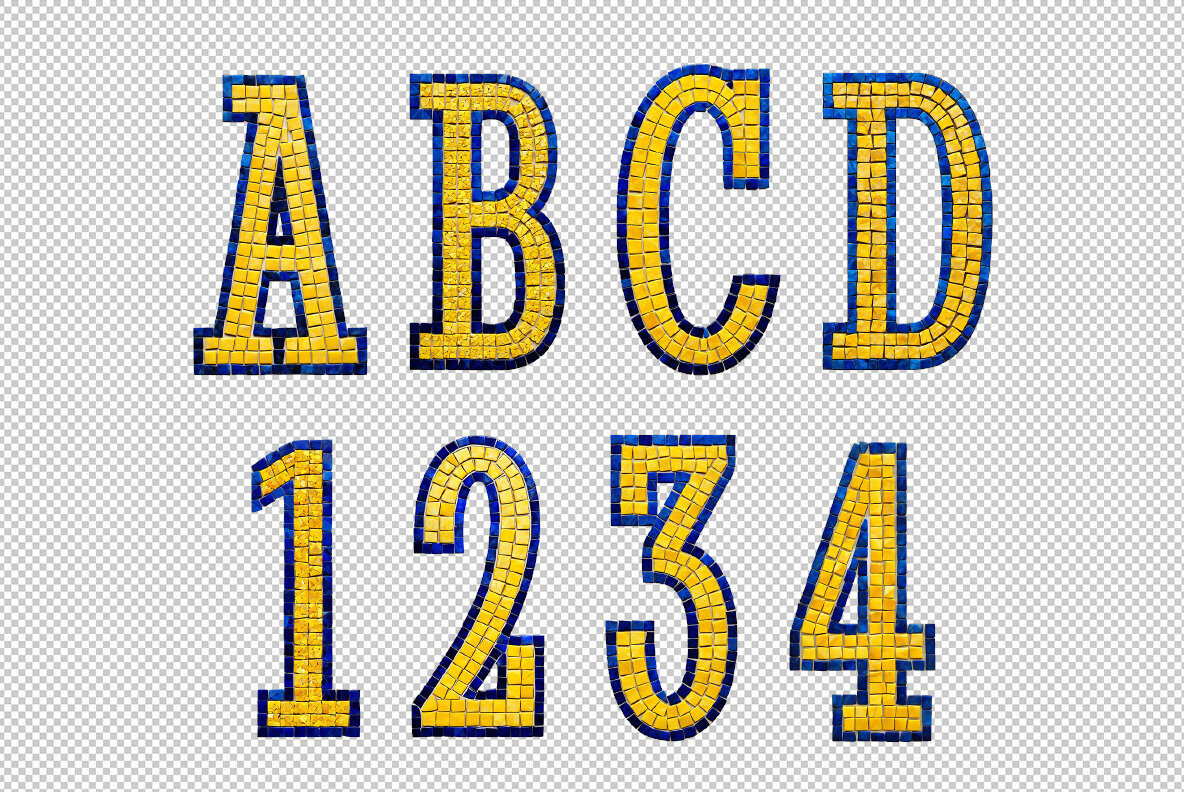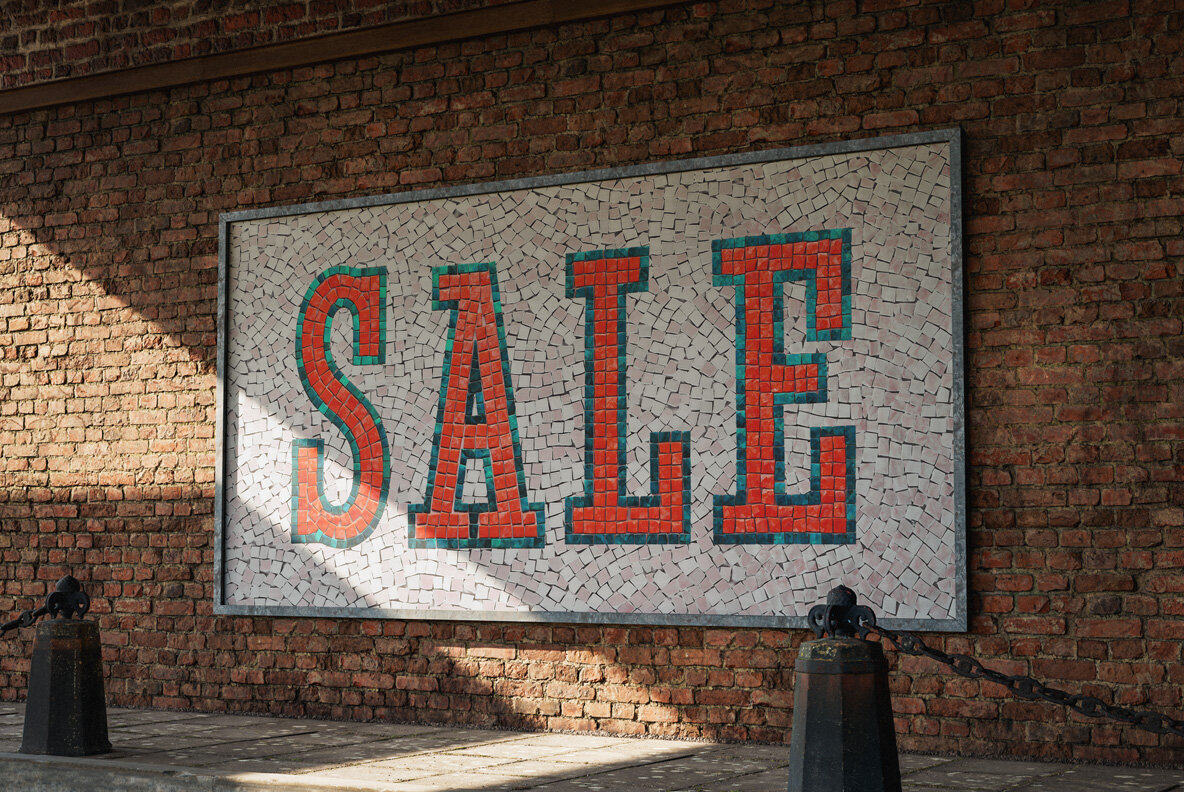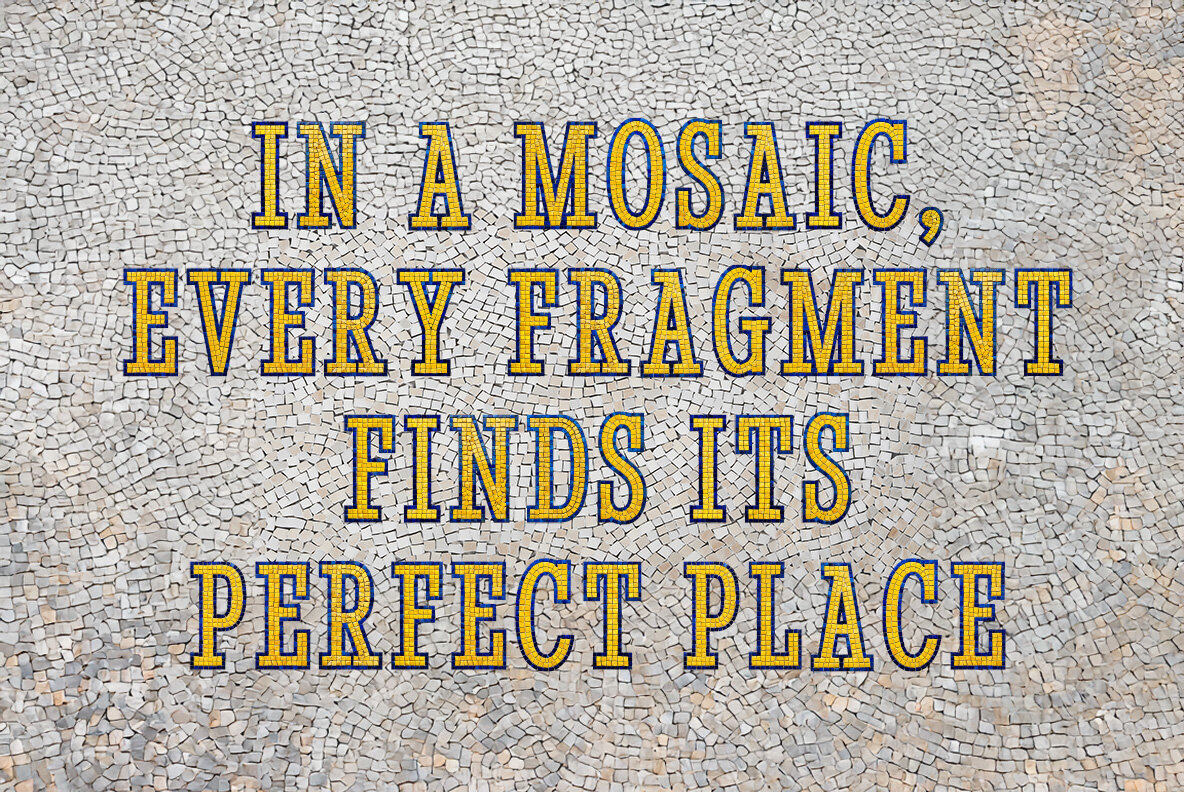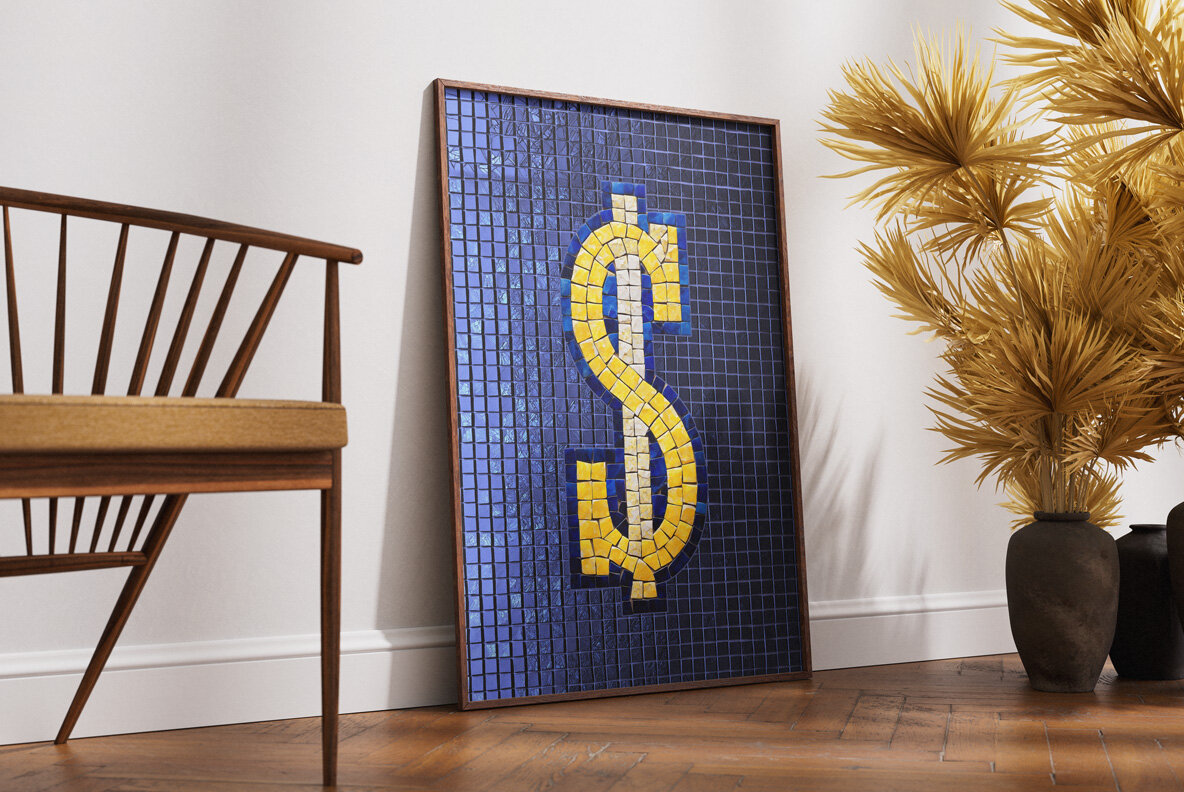
Mosaic SVG is an exquisite high-definition font that transforms each letter into a work of art, using small, colorful stones in intricate patterns to capture the essence of mosaic artistry. Perfect for designers seeking to infuse their projects with texture and charm, this font is ideal for applications ranging from posters and logos to digital graphics. Each character serves as a unique blend of traditional artistry and modern typography, promising to make any text stand out.
Mosaic SVG includes an array of characters:
- Letters: A-Z
- Numbers: 0-9
- Special Characters: !, ?, -, ., ', $, €, %, &, , @